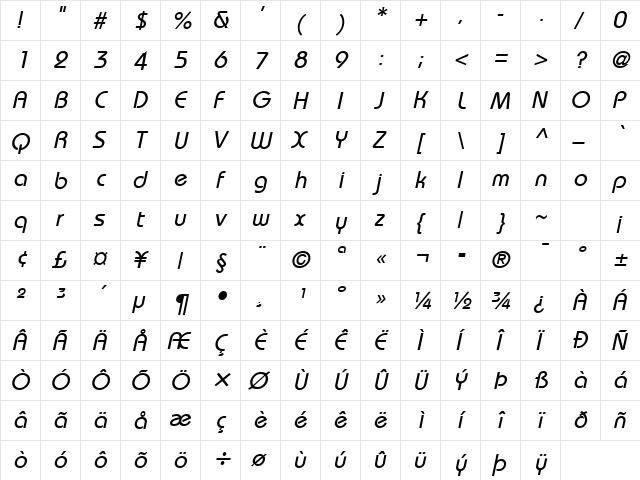
Bimini Italic
Design Context for Bimini Typeface
Bimini is a composed and adaptable typeface that performs quietly and consistently across a wide range of design contexts. The dynamic lean of this cut emphasises speed and emphasis in any layout.
Pro Tip: Use Bimini for emphasis, pull quotes, and subheadings where its slanted energy can add rhythm to the layout.